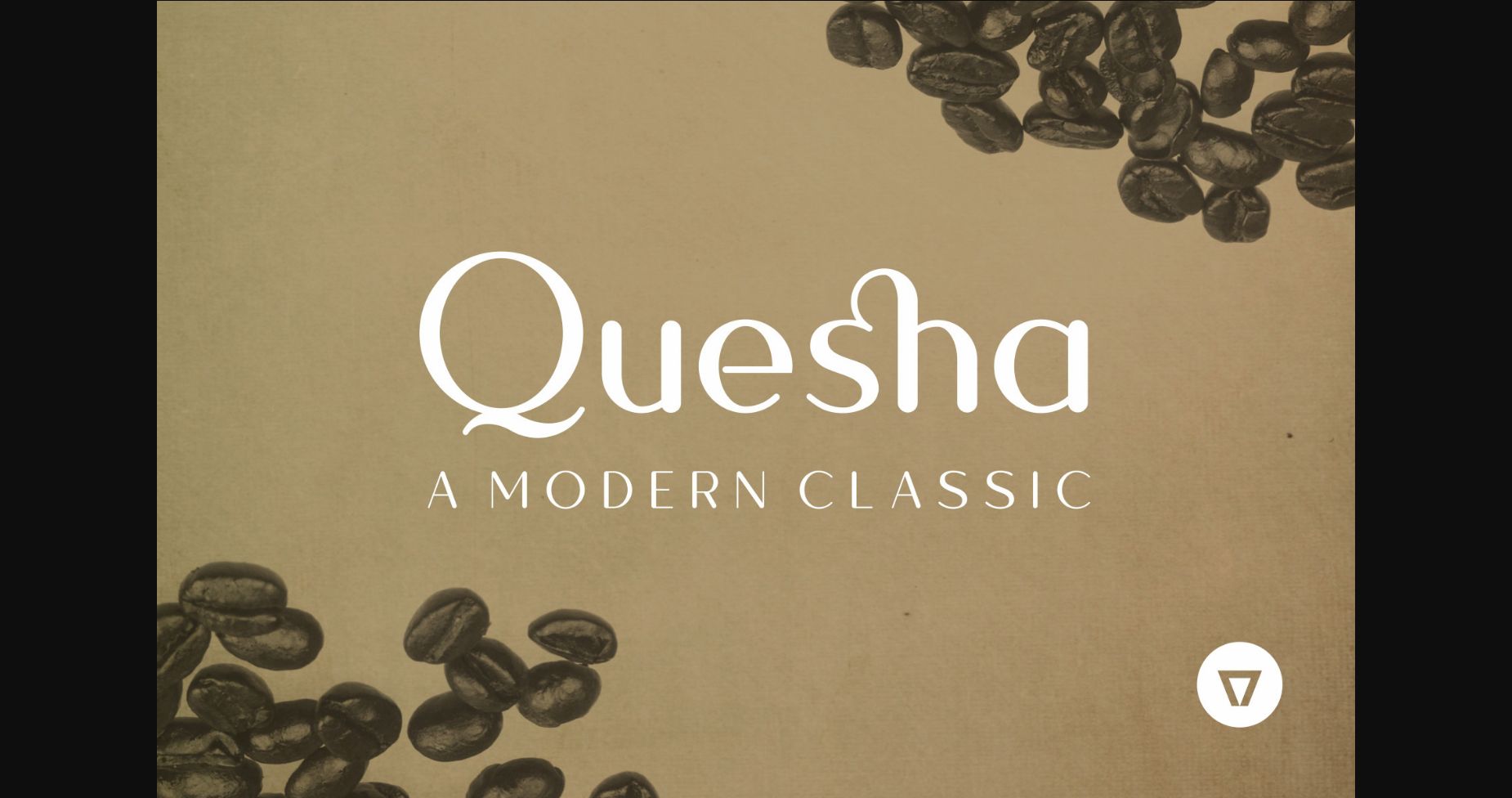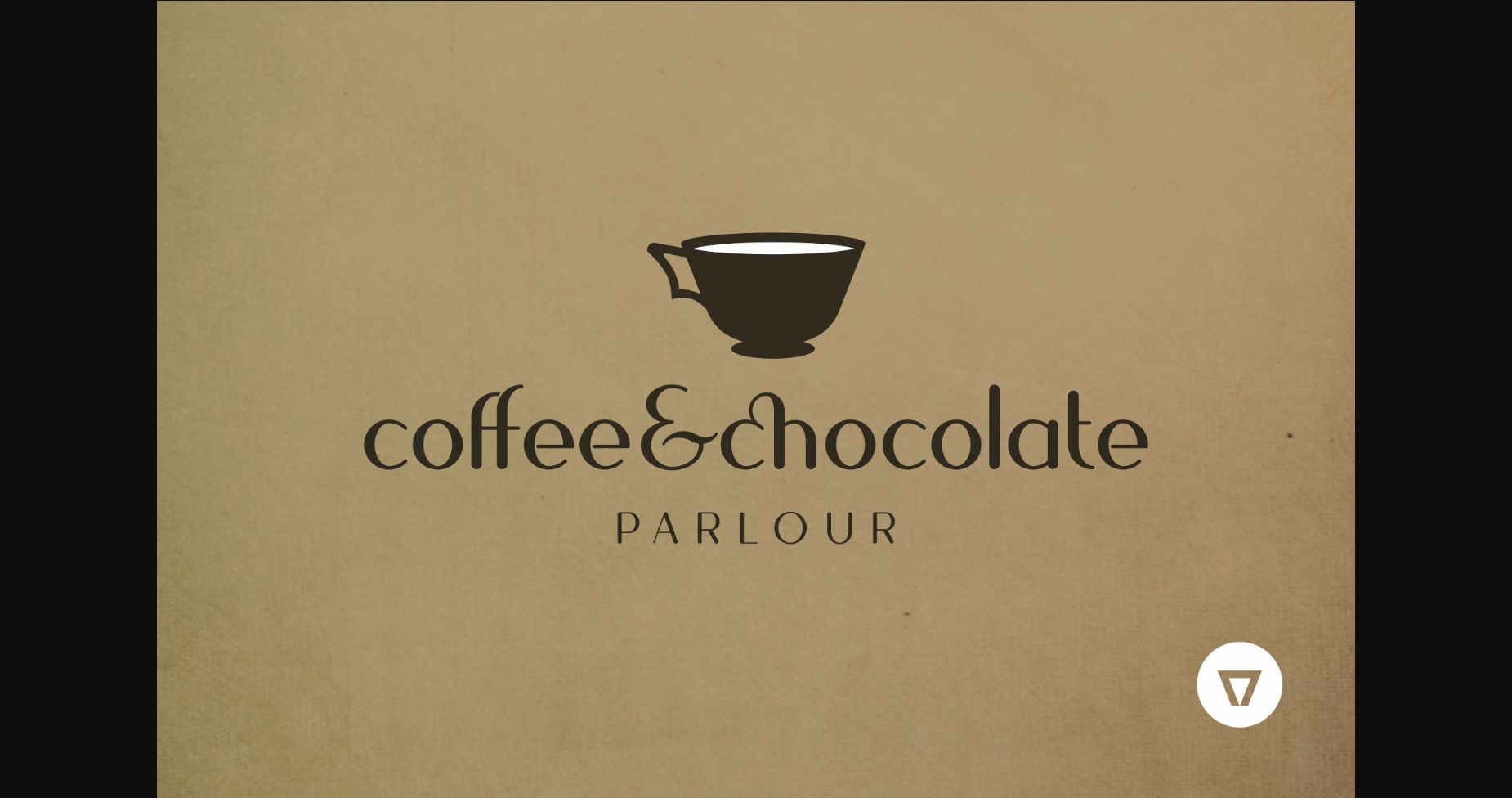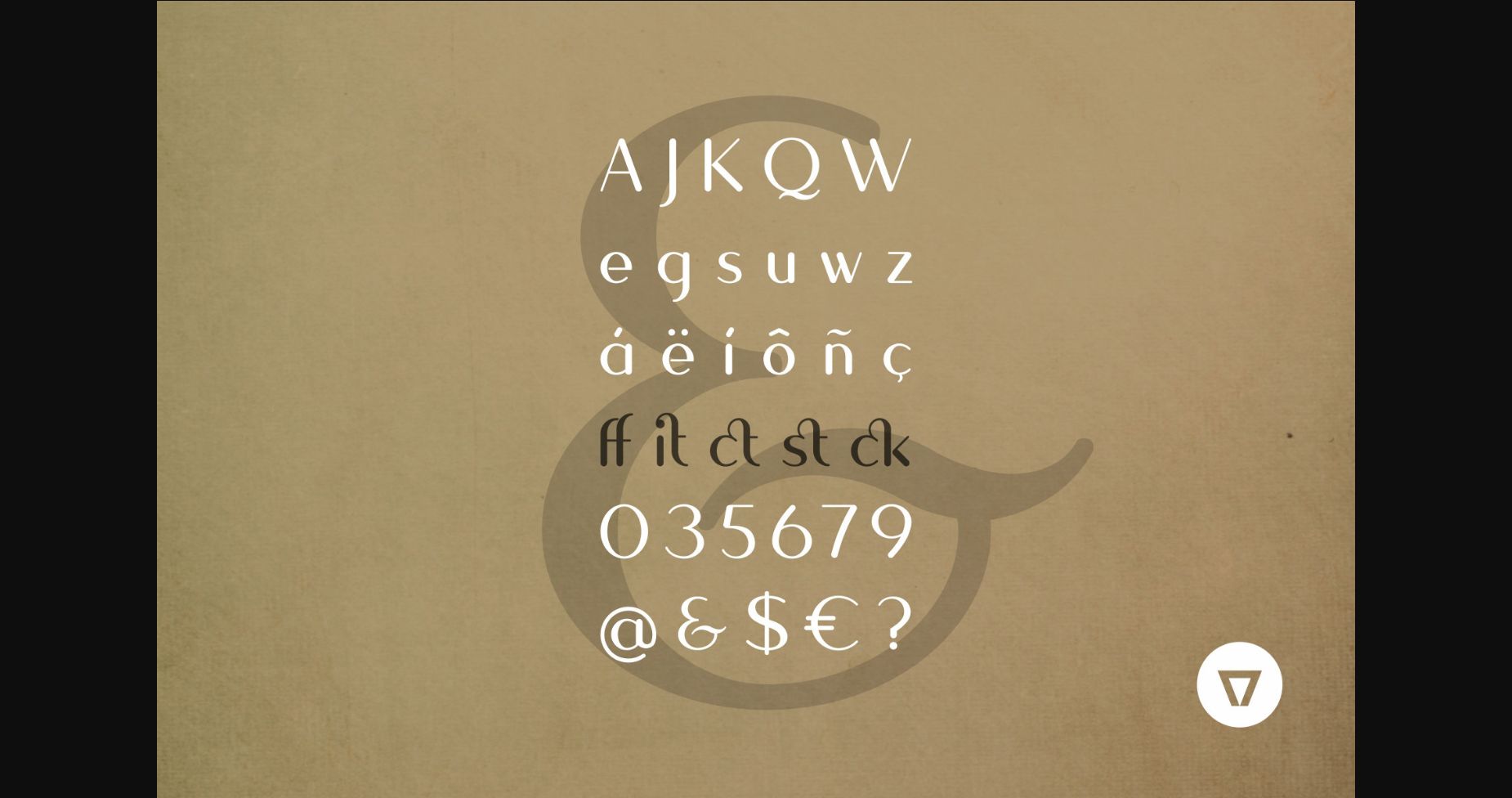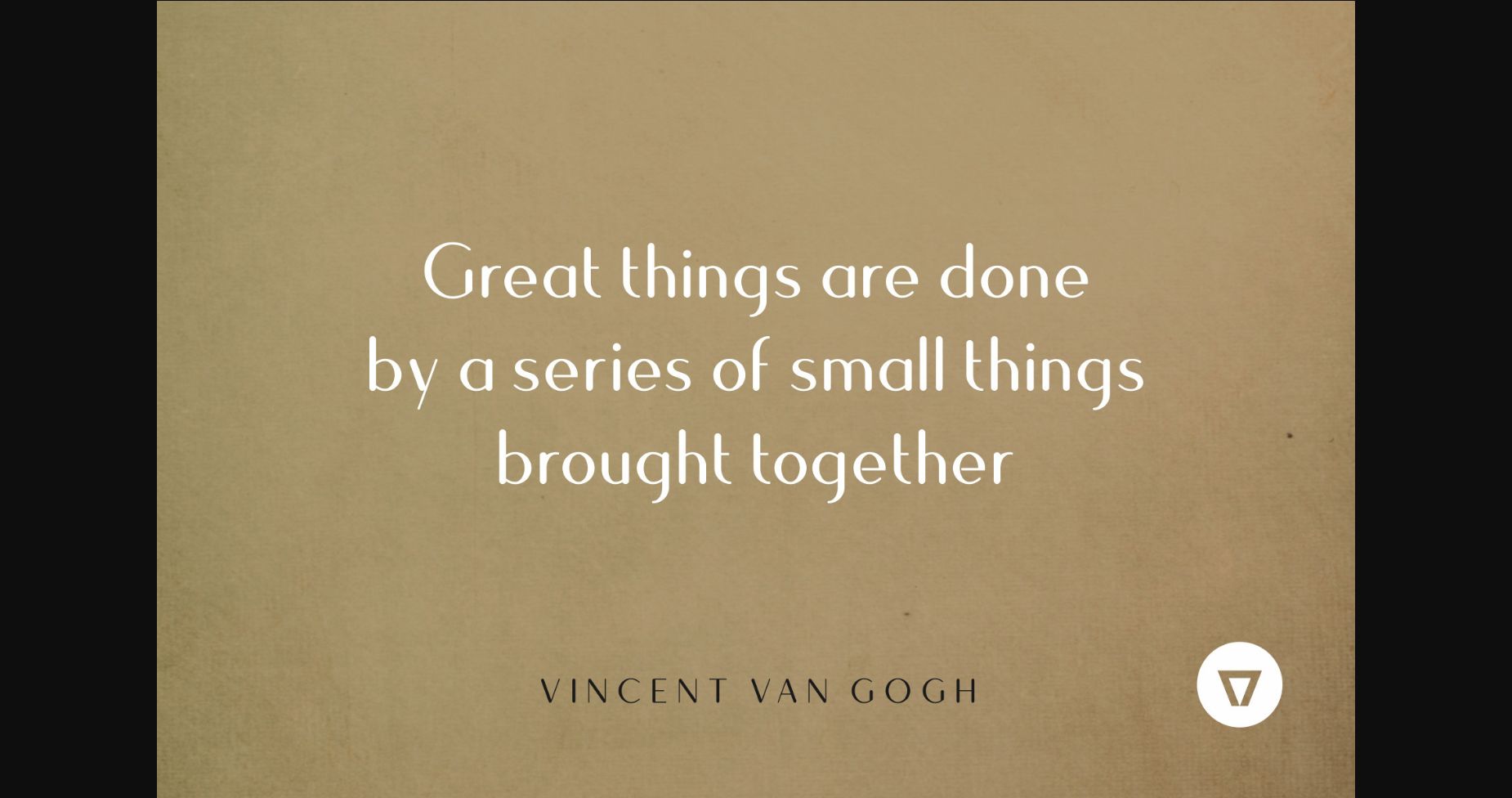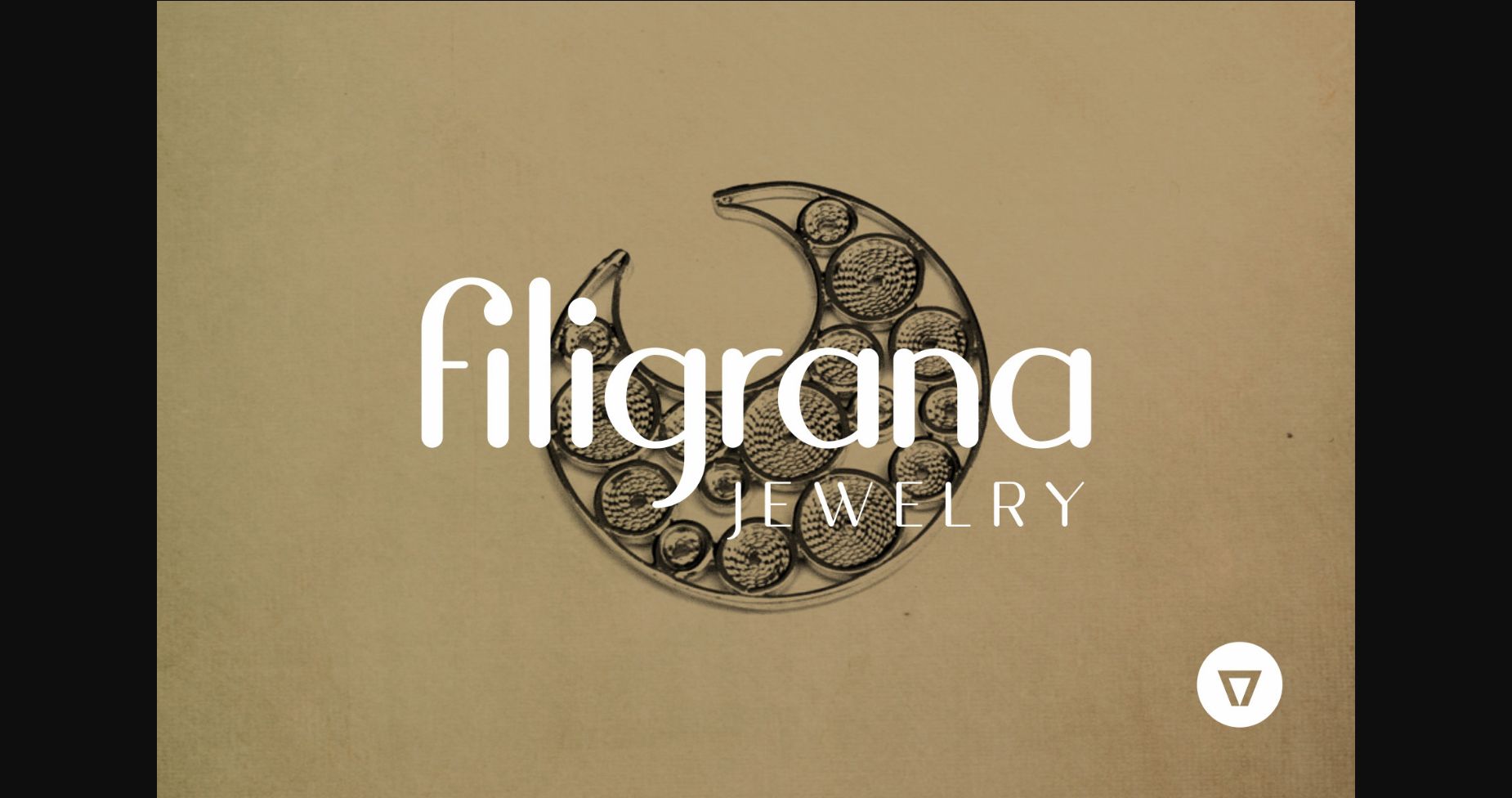
About Quesha Font
Born from a modular font project, Quesha mixes a geometric construction with pure organic exceptions.
Contrasted, readable, elegant, and friendly, Quesha is a modern classic sans serif.